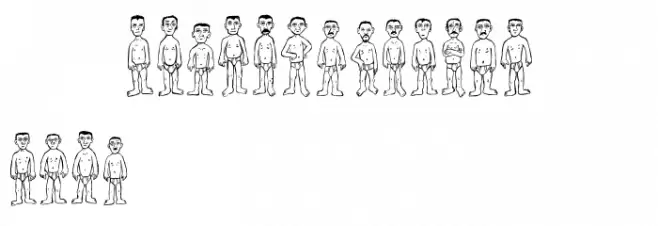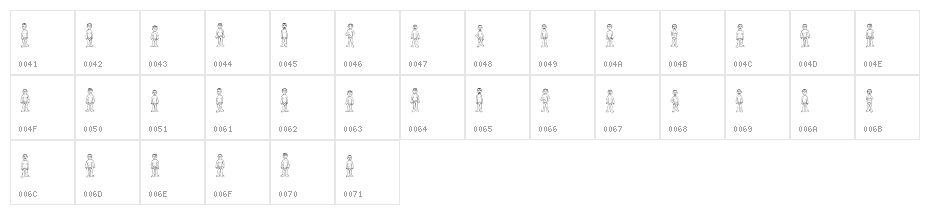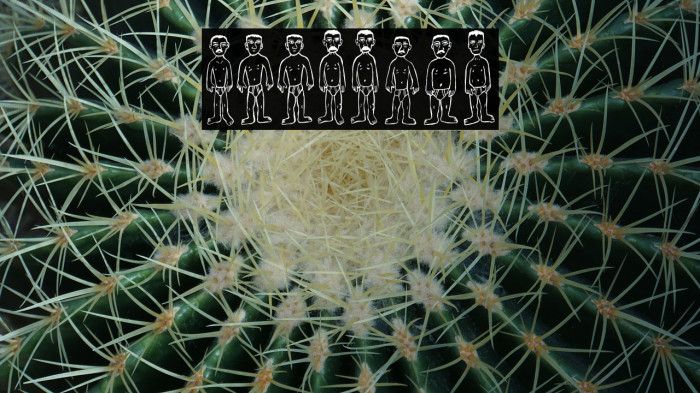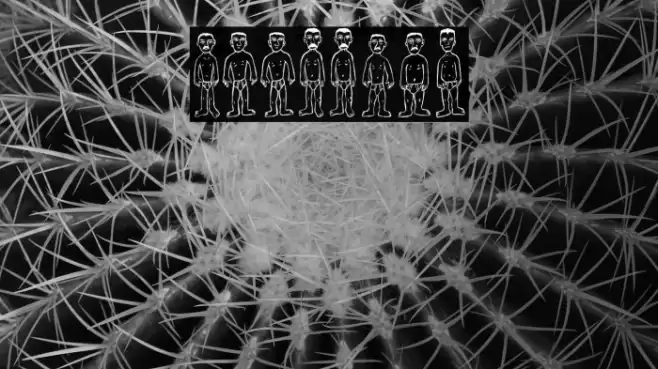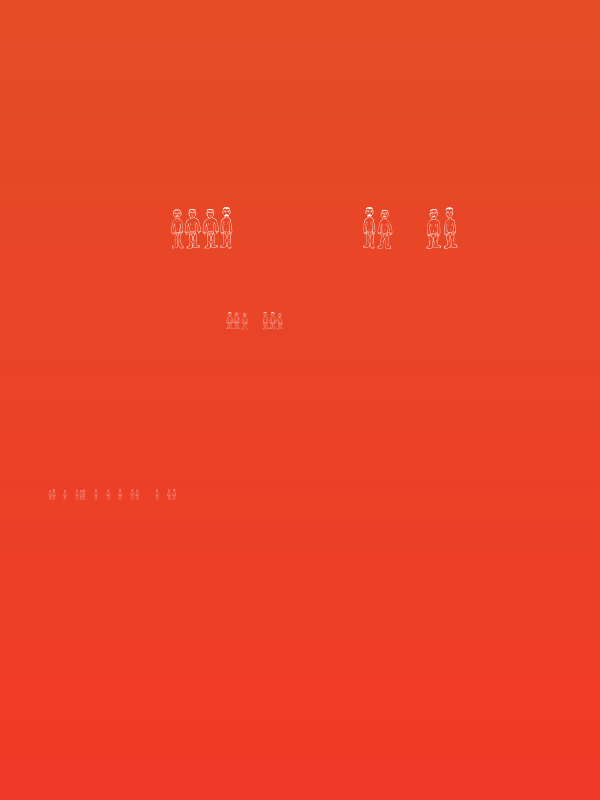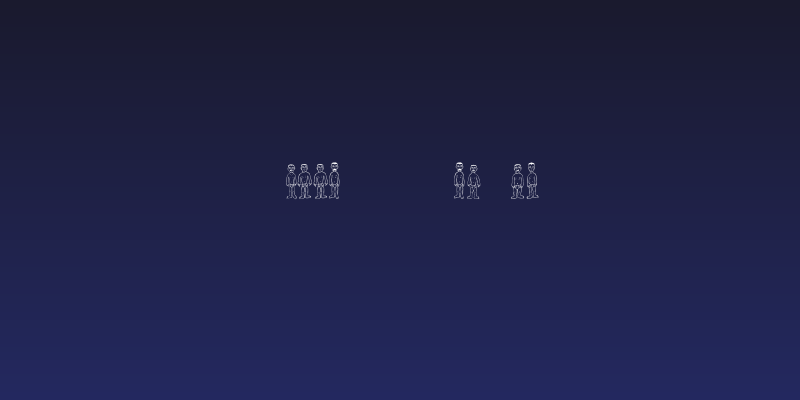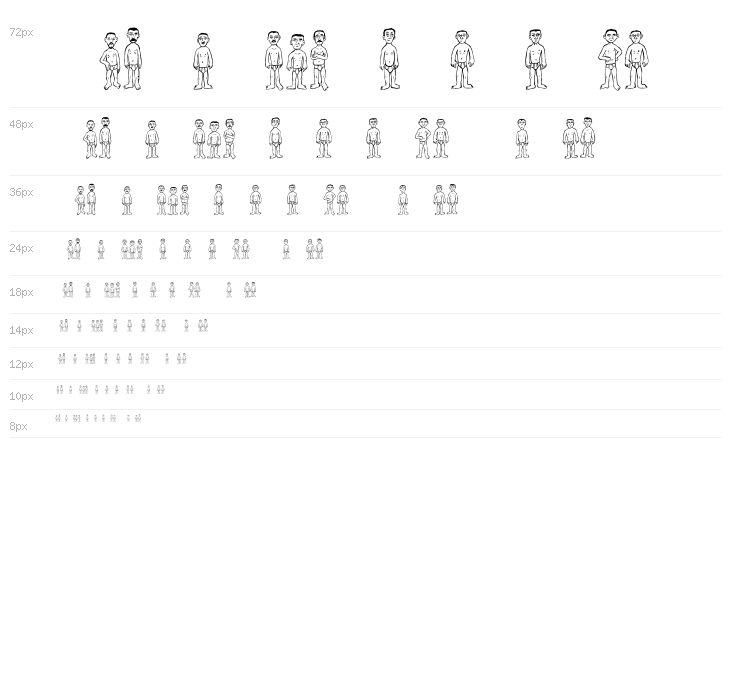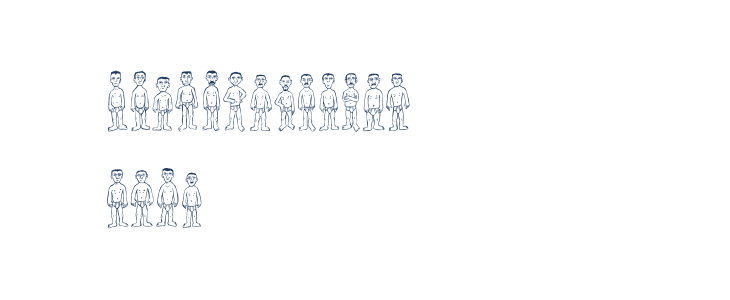
This font is a playful and whimsical design where each character is represented by a small, cartoonish swimmer figure. The swimmers are depicted in various poses, adding a unique and humorous touch to the text. The figures are outlined with simple, clean lines, and the overall appearance is light-hearted and fun. This font is not meant for traditional text representation but rather for decorative purposes where a quirky and creative style is desired. The characters are evenly spaced, maintaining a consistent visual flow across the text.
| Use Case | Logos, Posters, Creative Projects |
| Proposed Projects | Ideal for children's books, playful posters, or creative event invitations. |